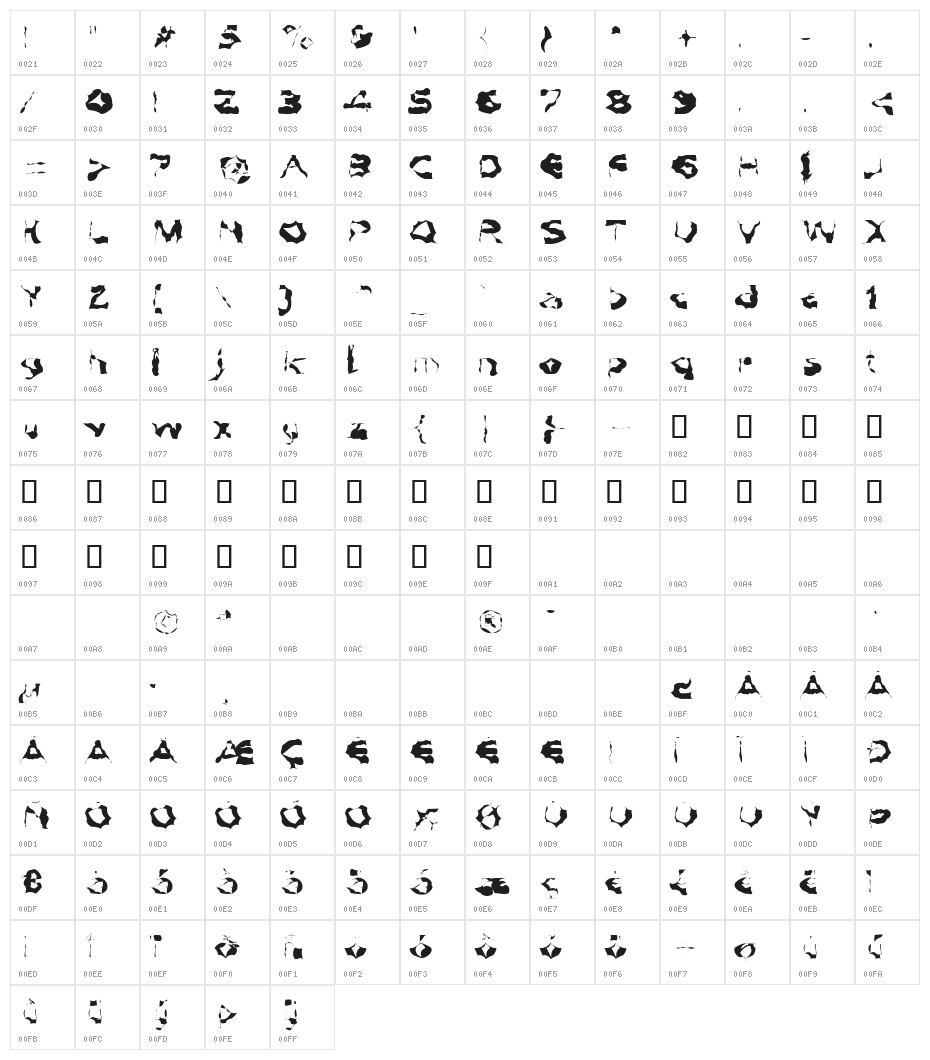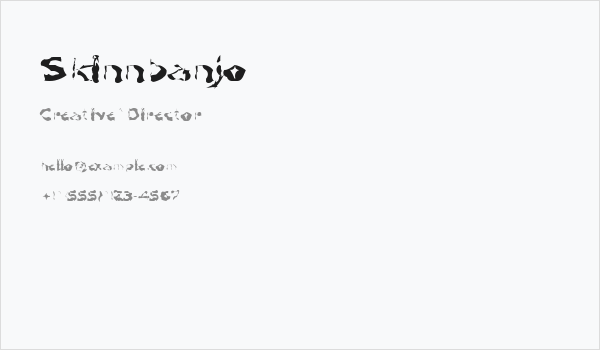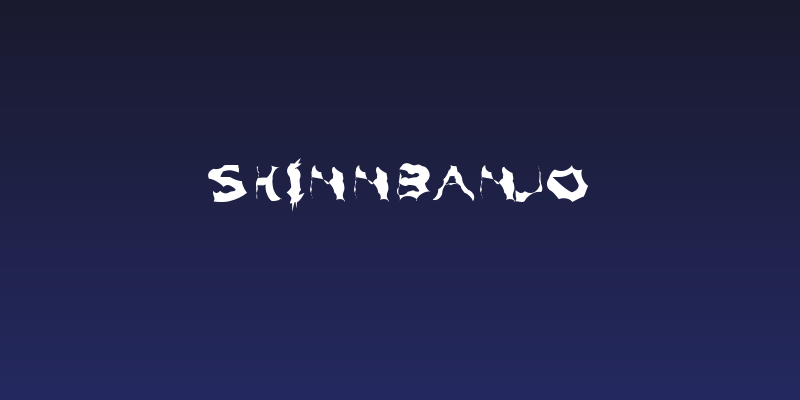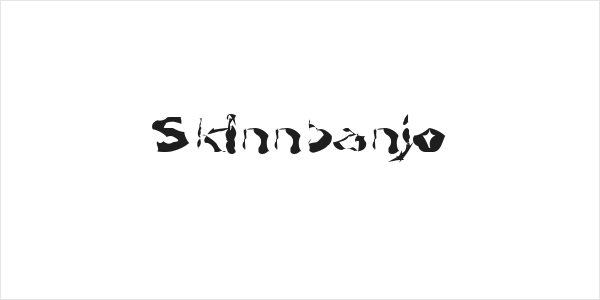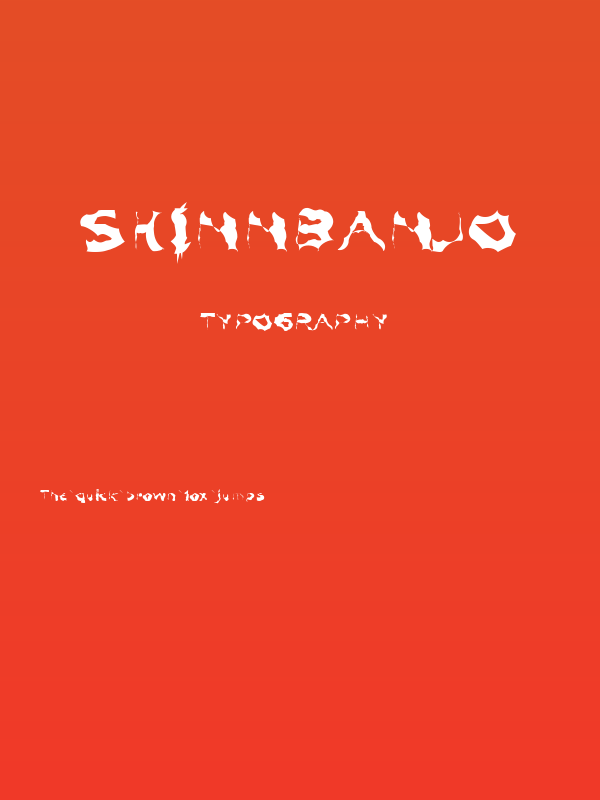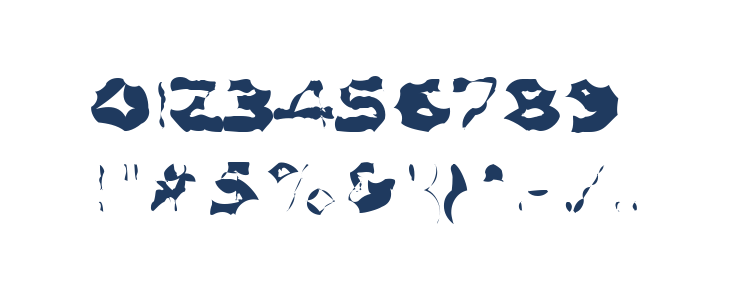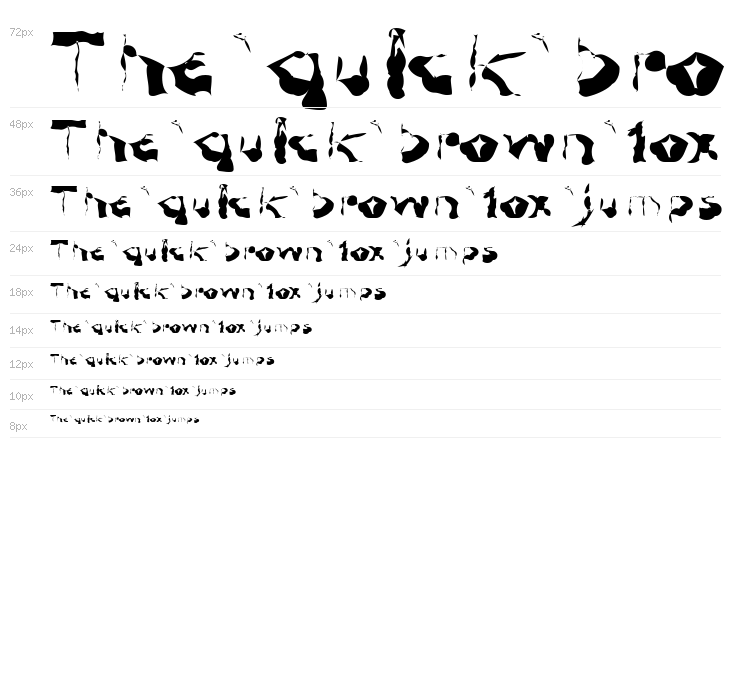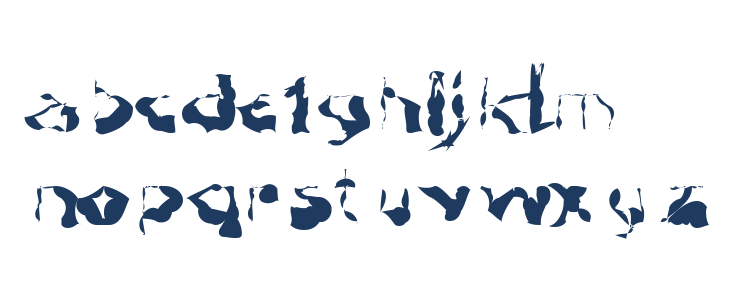
Skinnbanjo Font
Skinnbanjo Description
This font features a highly decorative and abstract design, characterized by its jagged and irregular edges. The letters appear as if they are torn or eroded, giving them a distressed and organic look. The uppercase and lowercase letters maintain a consistent style, with each character exhibiting unique variations in form. The numbers and special characters follow the same aesthetic, ensuring a cohesive appearance across all glyphs. This font's distinct and artistic style makes it stand out, offering a bold and unconventional visual impact.
| Proposed Projects | Ideal for artistic projects, album covers, posters, and any design requiring a bold, unconventional typeface. |